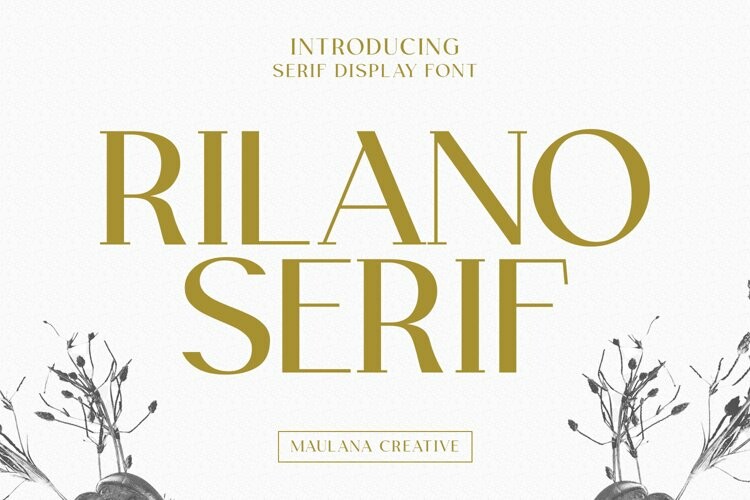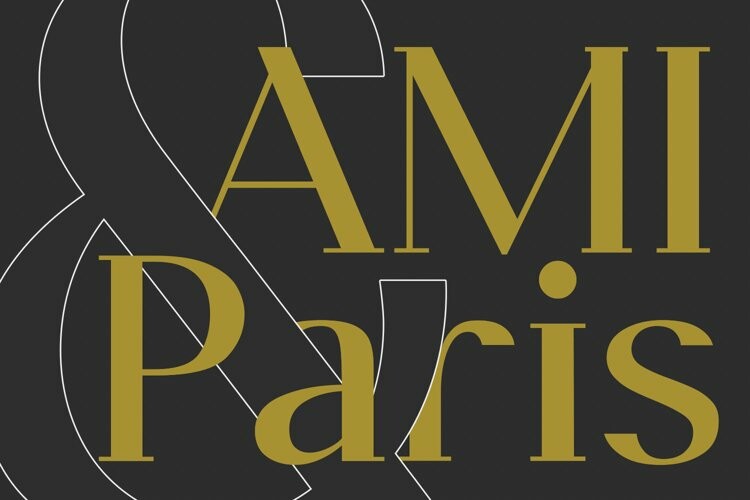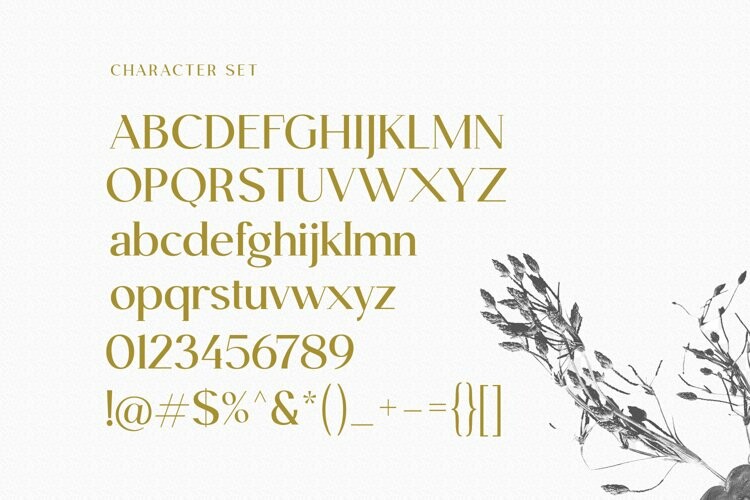
Rilano Serif Font
Rilano Serif FontRilano is a semi serif with no brackets Display fashion font. Regular Contrast stroke, fun character with a bit of ligatures and alternates. To give you an extra creative work. Rilano font support multilingual more than 100+ language. This font is good for logo design, Social media, Movie Titles, Books Titles, a short text even a long text letter and good for your secondary text font with script or serif. Make a stunning work with Rilano font.